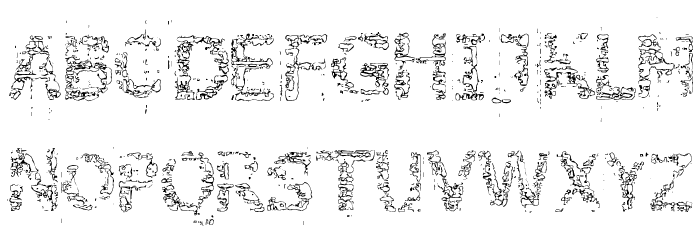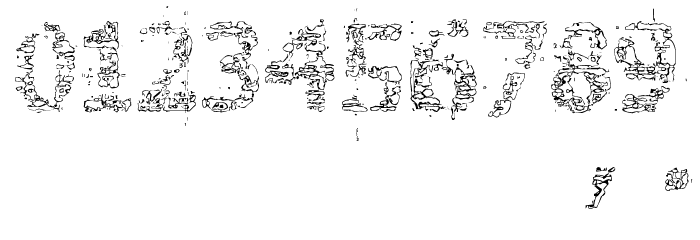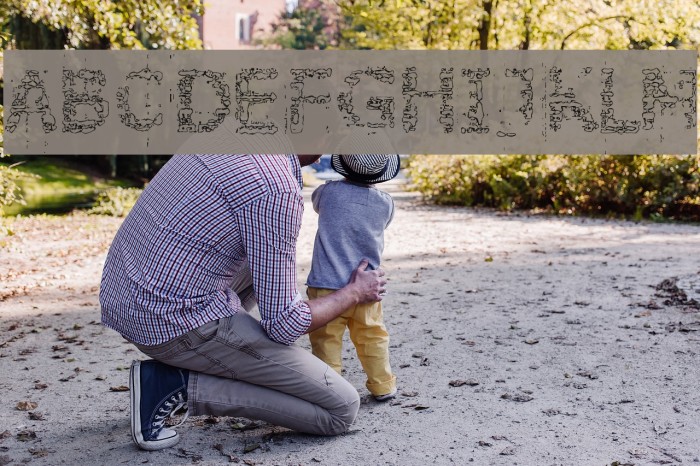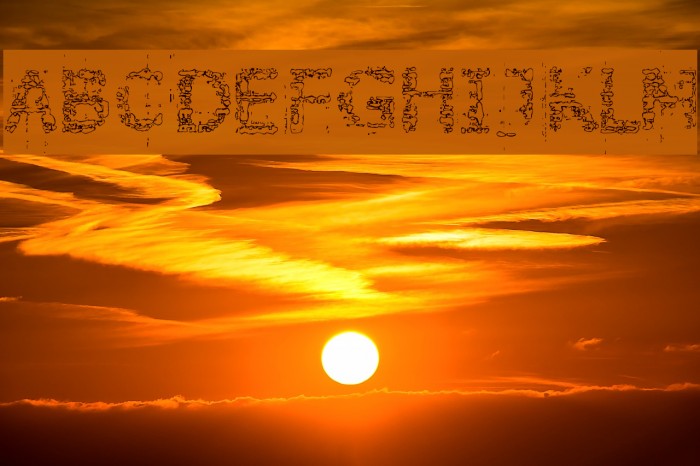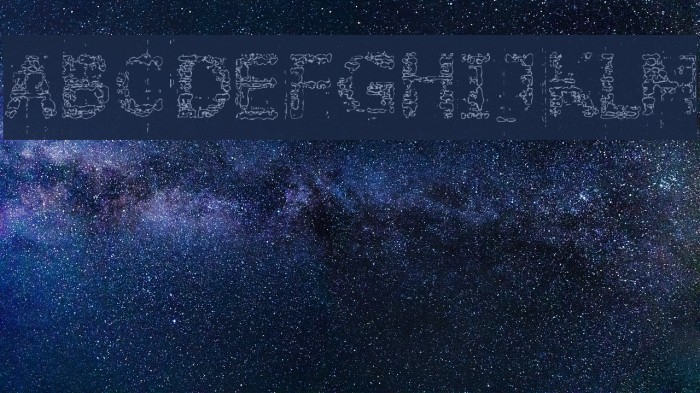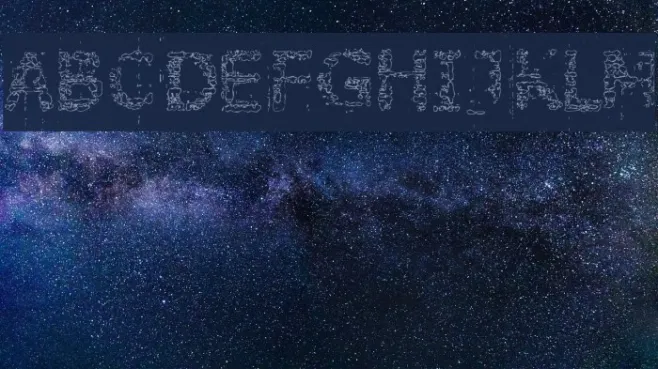
Stone Edge Font
This font features a rugged, textured appearance reminiscent of stone or rock formations. Each character is crafted with intricate detailing, giving the impression of a natural, uneven surface. The design is bold and eye-catching, making it ideal for projects that require a strong, earthy aesthetic. The uppercase and lowercase letters maintain a consistent style, while the numbers and special characters complement the overall theme. The font's unique texture adds depth and dimension, making it stand out in any design context.
A rugged, textured font with a stone-like appearance.
- Proposed Projects: Ideal for outdoor-themed branding, geological publications, or any project requiring a natural, earthy feel.